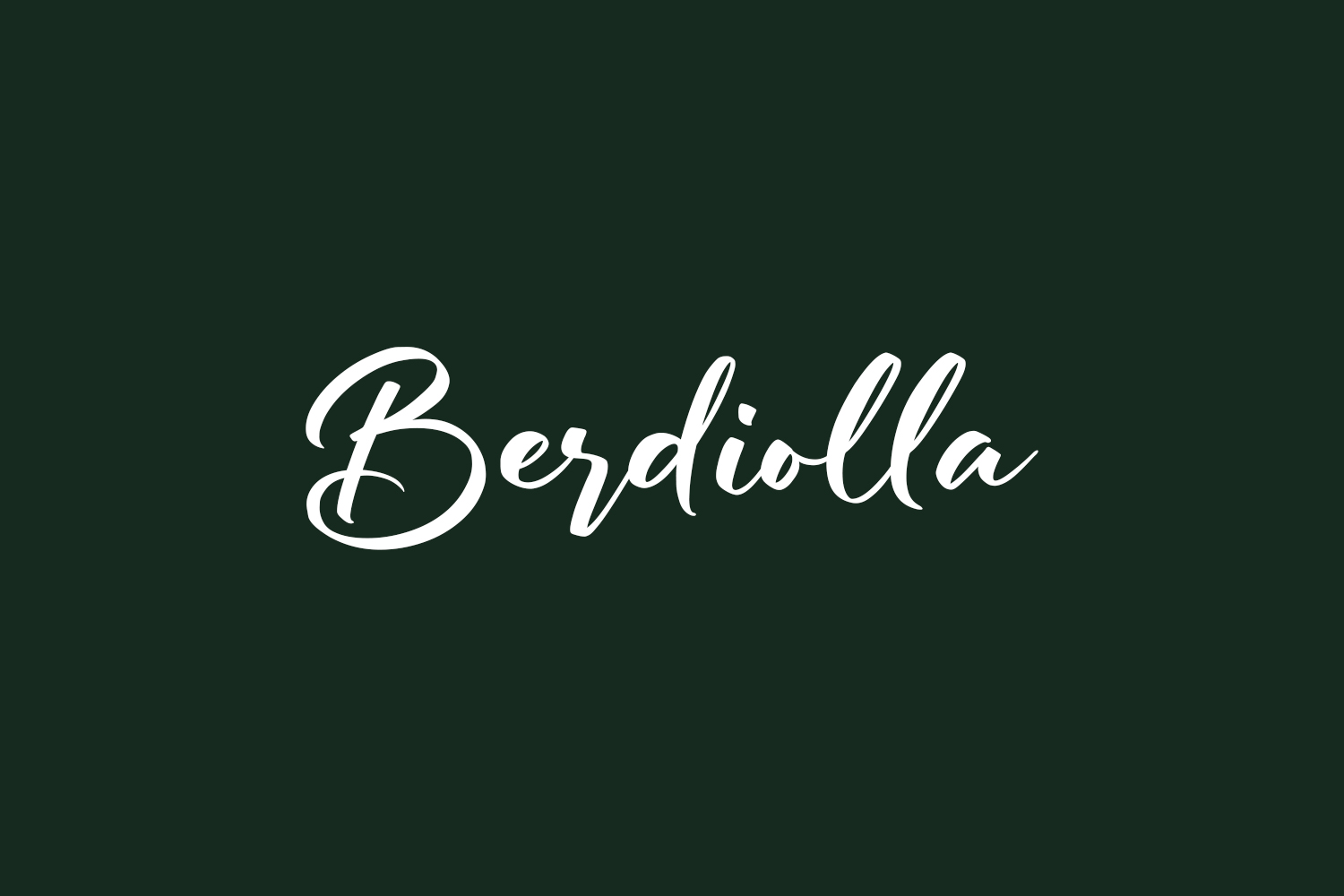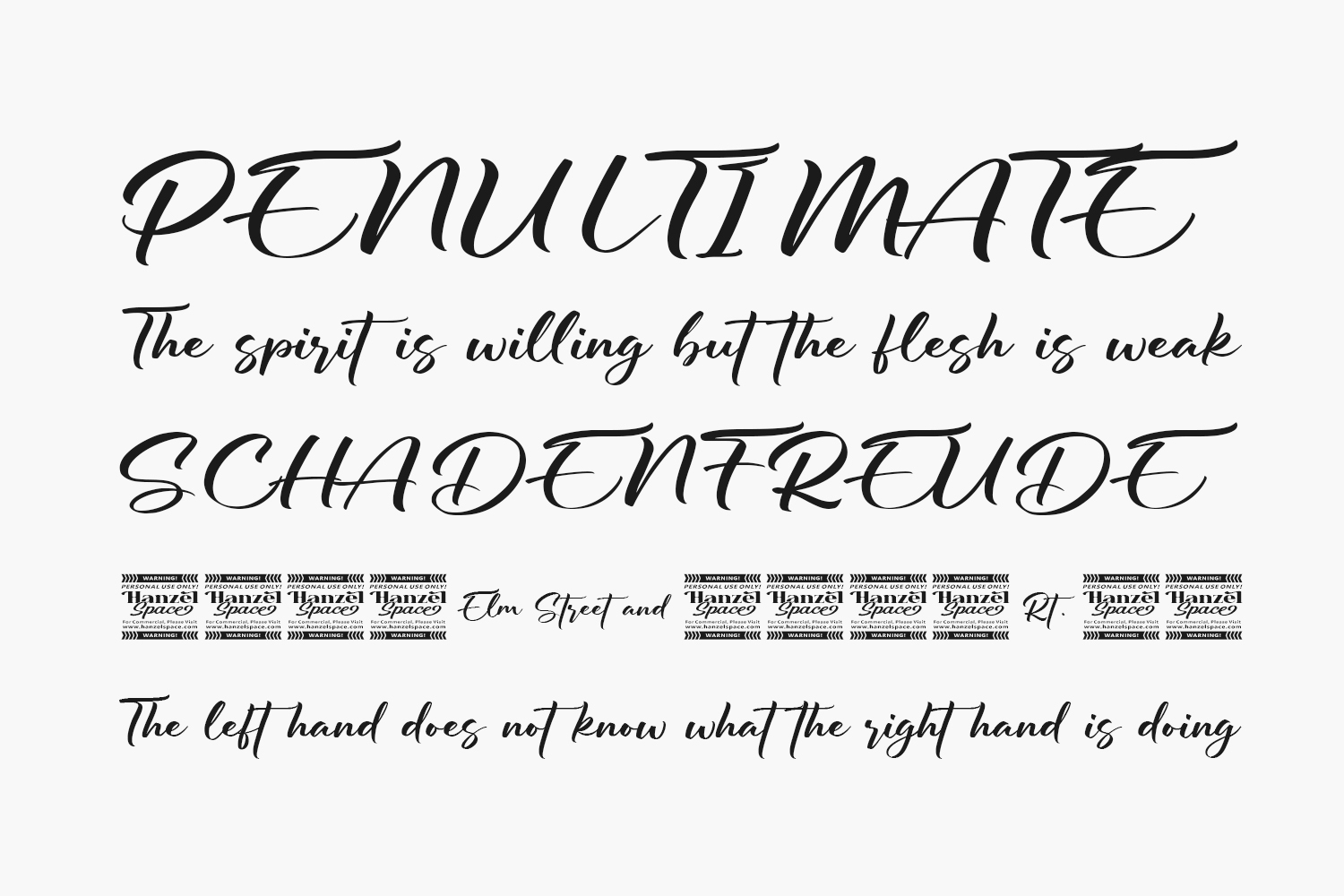
Berdiolla Free Font is an enchanting handwritten font. This versatile script font has a wide spectrum of applications ranging from greeting cards to headlines and is guaranteed to add a romantic feel to your next project. Berdiolla Free Font was designed by Hanzel Space is a demo and free for personal use only. Please purchase the full version for commercial use.